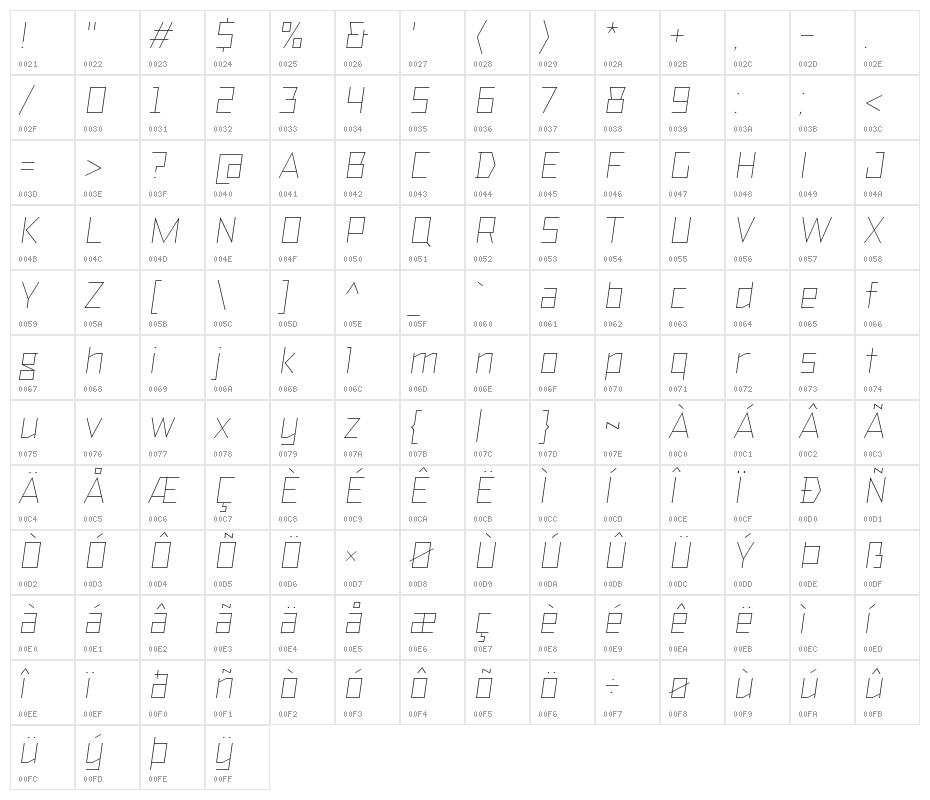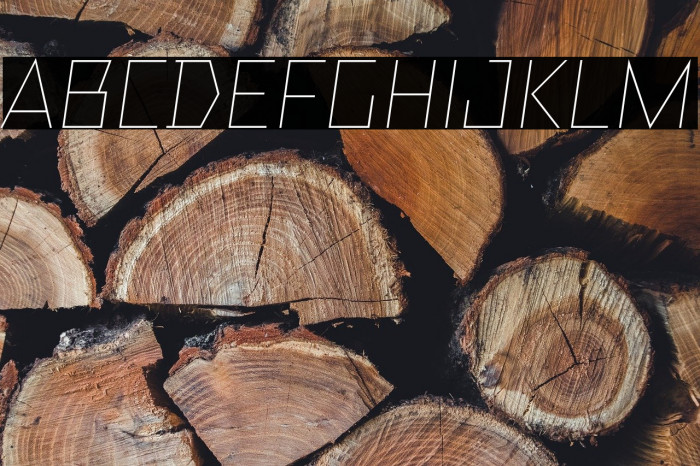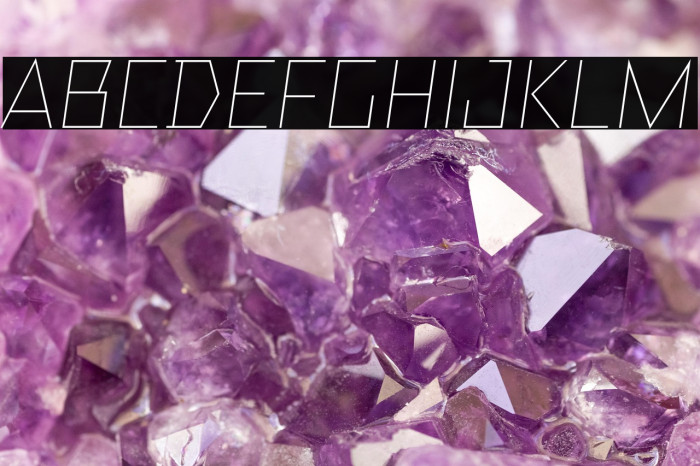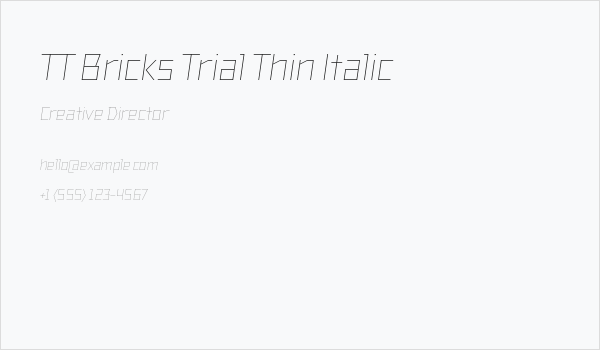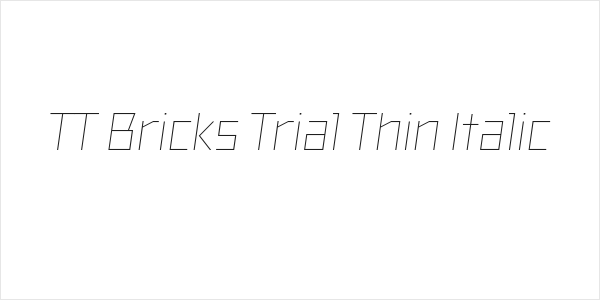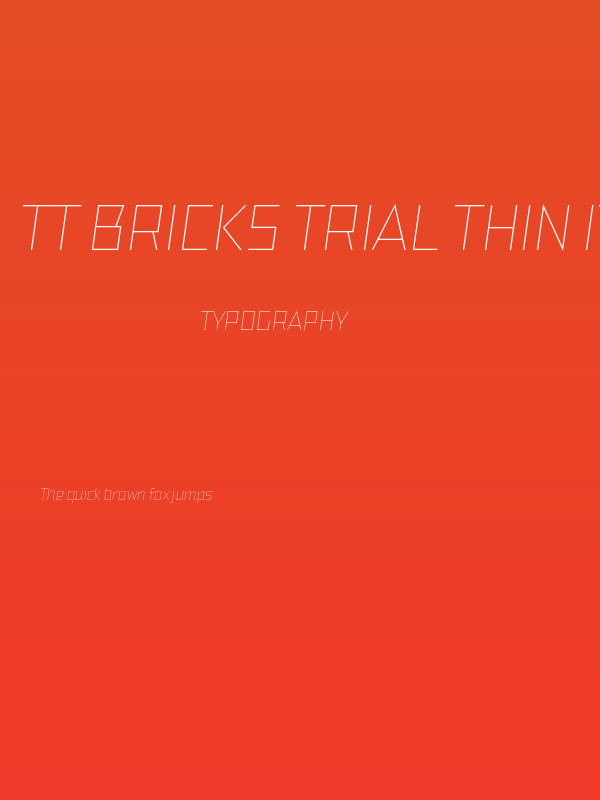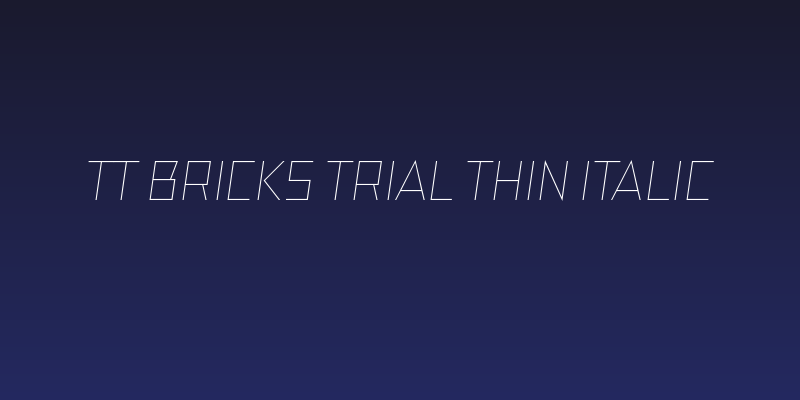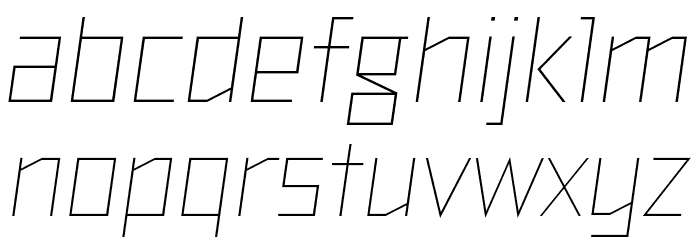
TT Bricks Trial Thin Italic Font
TT Bricks Trial Thin Italic Description
This font exhibits a modern and geometric style with a thin and italicized form. The characters are constructed with straight lines and sharp angles, giving it a technical and precise appearance. The uppercase and lowercase letters maintain a consistent height, contributing to a uniform and clean look. The numerals are similarly styled, ensuring coherence across all characters. Special characters are designed with the same geometric precision, making them easily recognizable. The thin strokes and italic slant add a touch of elegance and sophistication, suitable for contemporary design projects.
| Proposed Projects | Ideal for tech branding, modern posters, architectural magazines, and digital interfaces. |